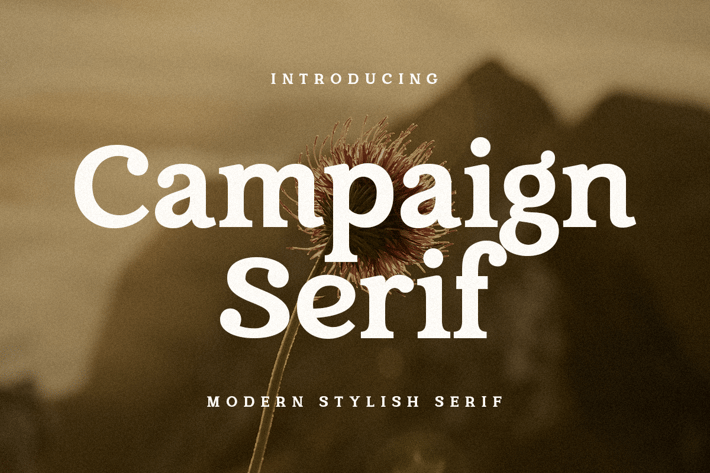
Campaign Serif - Modern Stylish Font
Campaign is a Modern Stylish Serif Font that we created special for Display, Modern logo and Branding needs
A new Serif font that is nice to leverage designer or product owner that need solutions to make their design look more gorgeous and modern. And specially for Campaign font, We prepared any characters to help you create gorgeous for your creative needs specially for headline, and typography needs.
Stylish Shape to get creative
Ready with Lowercase and Uppercase characters